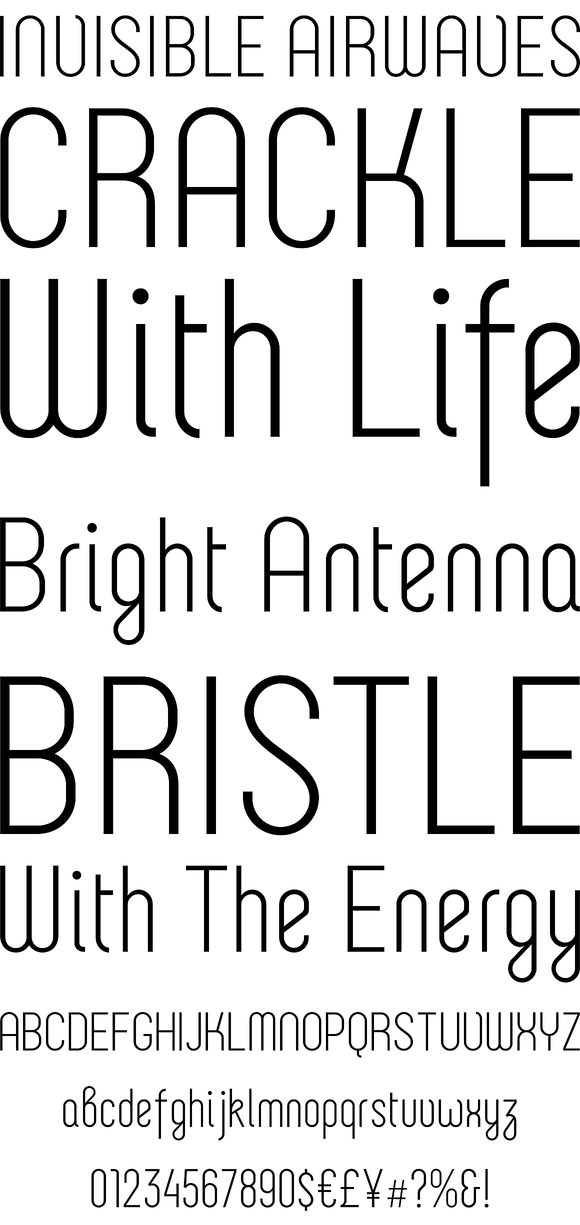
Neubau is a condensed geometric display typeface. The inspiration for this face came from Joost Schmidt lowercase letters developed during 1925-28 in Bauhaus Dessau. Schmidt was one of the proponents of New Typography - a movement advocating the use of only lowercase letters which were constructed strictly geometrically using only ruler and compass. Neubau family consists of three subfamilies - Neubau Sans, Neubau Grotesque and Neubau Serif, each of them in three weights - light, regular and bold.